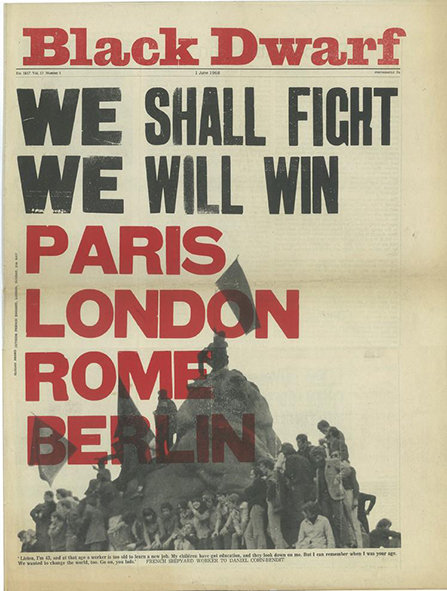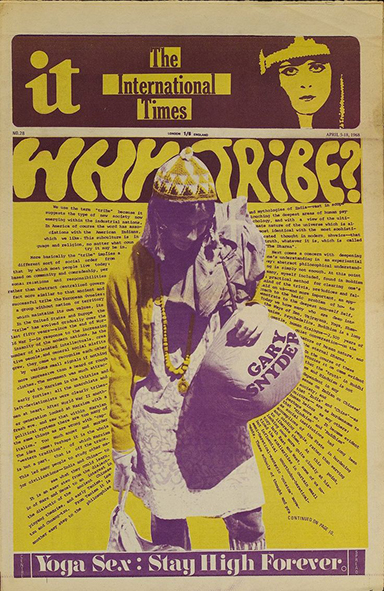
The British Undreground Press of the 60s roars like a beast
In 1966, when the first British underground newspaper International Times was launched, a news media revolution erupted. After IT came Oz, and then Friends (which became Frendz), Gandalf’s Garden, Black Dwarf and Ink. While IT revolutionised the editorial stance and style of newspapers, OZ soon brought to the attention of thousands the UK’s burgeoning psychedelic art scene, employing artists and designers who used vibrant colours, materials and esoteric ideas to create posters, clothes, lightshows and art installations.
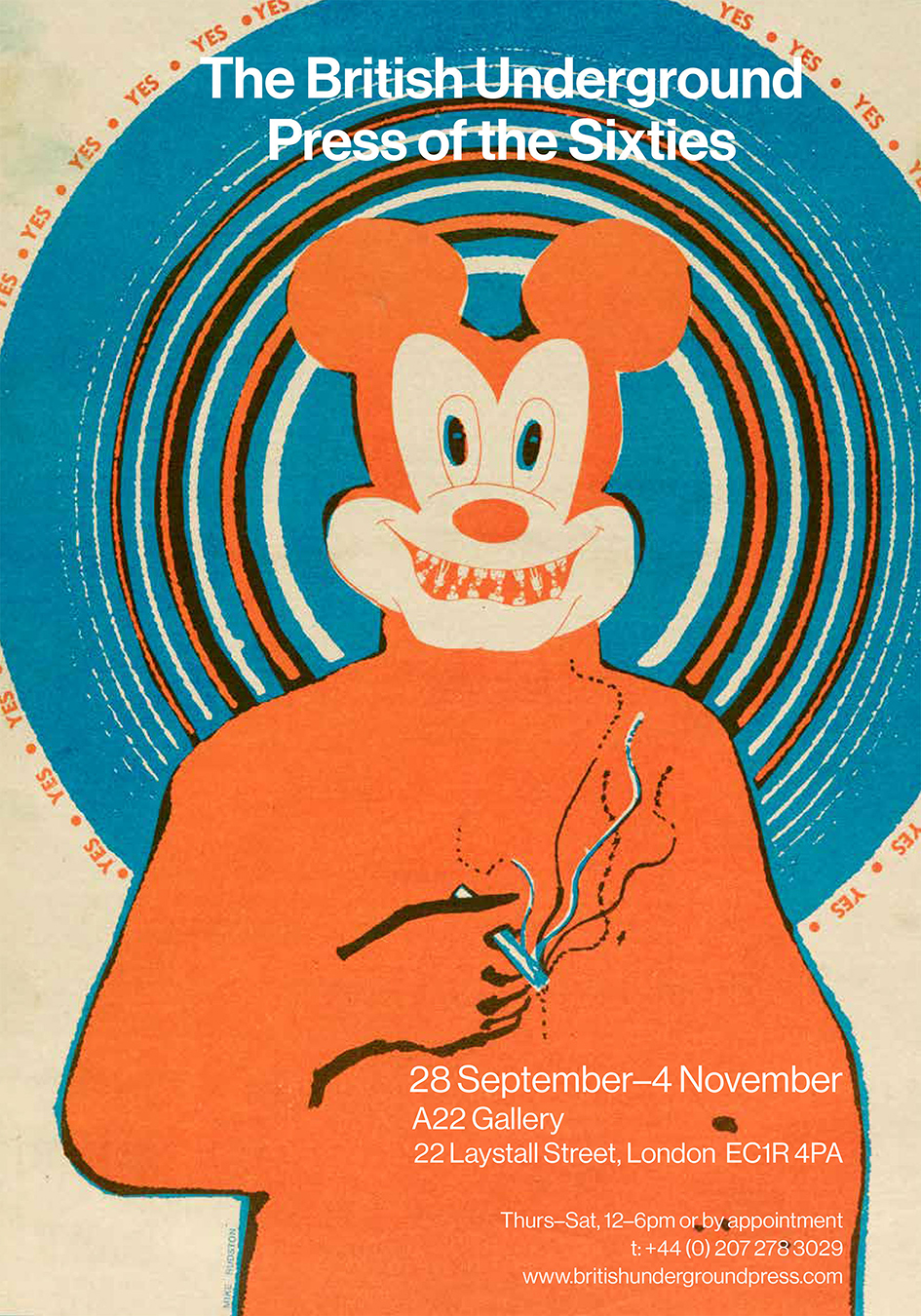
Oddly, the influence and impact of the underground press has largely been neglected or undervalued, but as this groundbreaking exhibition demonstrates, without the underground press there may well have been no British counterculture. This legacy is beautifully curated and presented in the new publication “The British Underground Press of the Sixties” which brings together the magazines and comic books produced during what is regarded “Britain’s first wave of the counterculture movement”.
174 issues and half a century later this tome of ground-breaking graphic design species and the accompanied exhibition opening on September 28 at A22 Gallery in Clerkenwell celebrates the spirit.
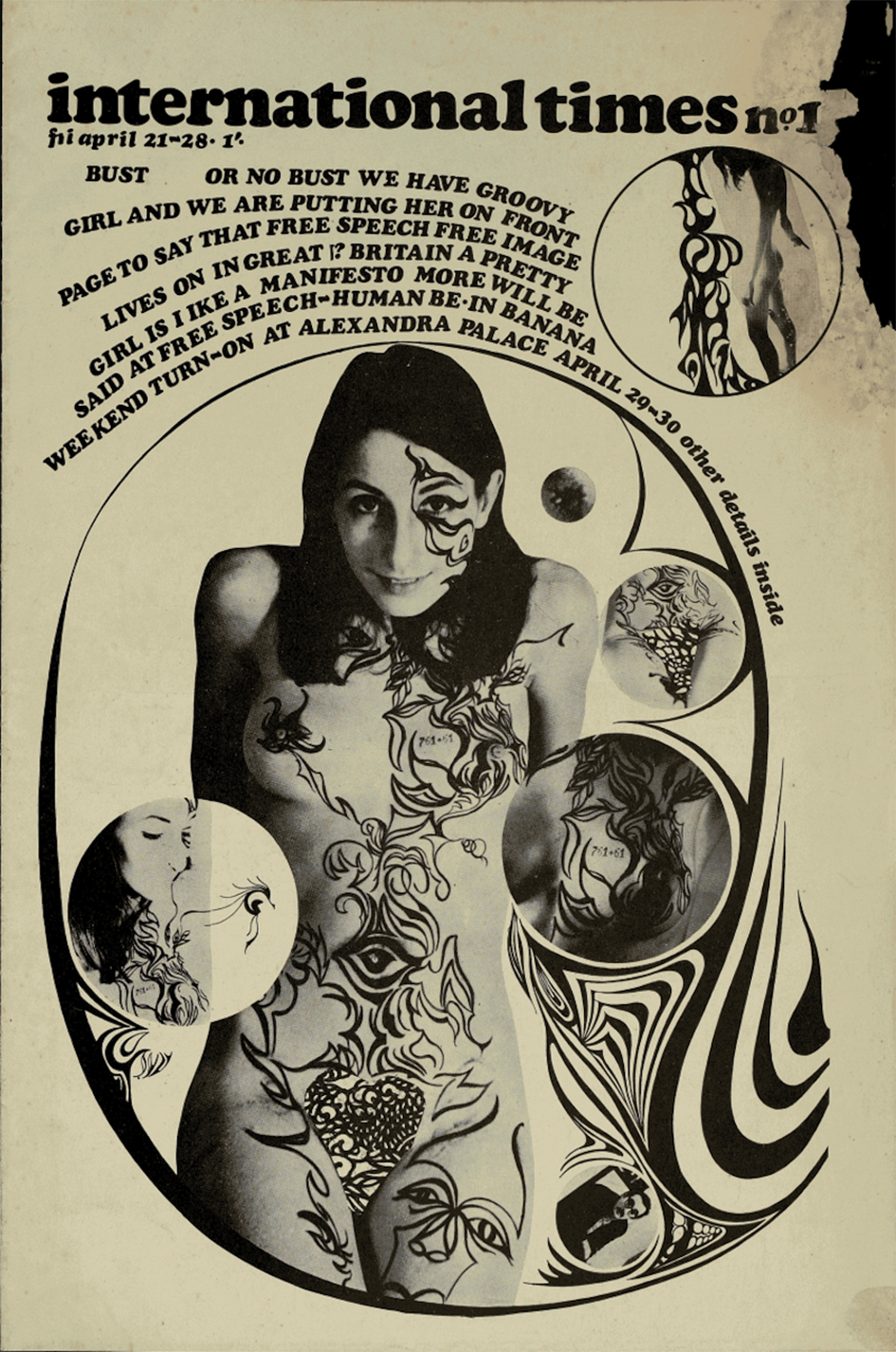
Zines, comic books, posters, flyers, ads and other graphic art are featured in the book edited by Barry Miles and James Birch who are here to bring into the limelight the forgotten and lost “influence and impact of the underground press” which according to the editors “has largely been neglected or undervalued”.
Celebrate the second rise of British counterculture with the book and exhibition.